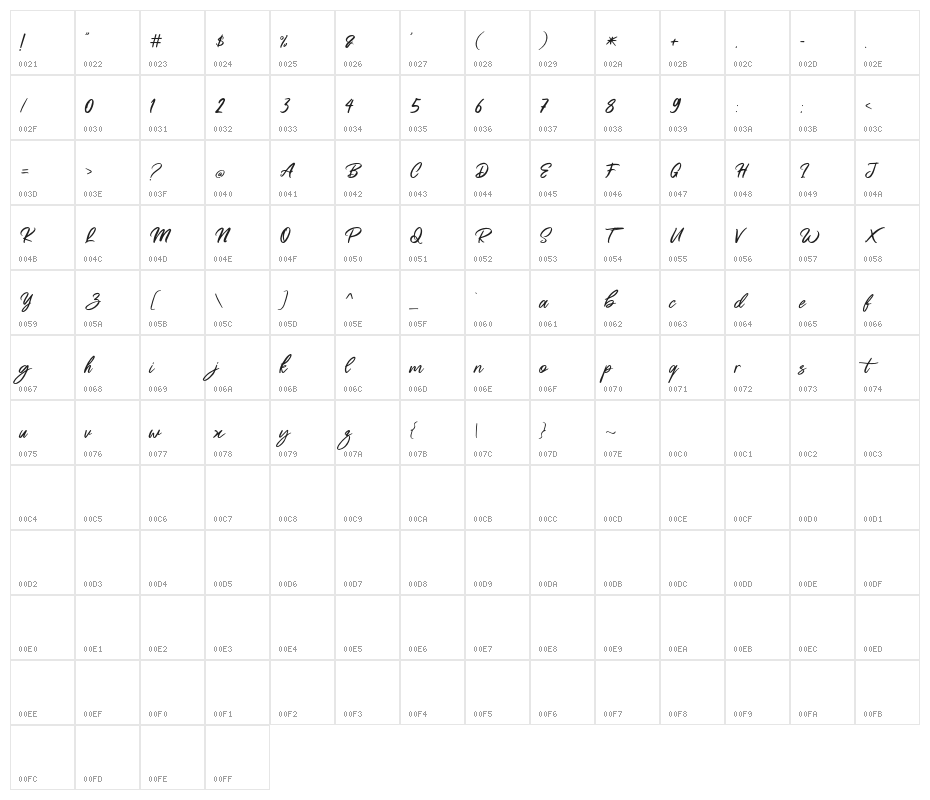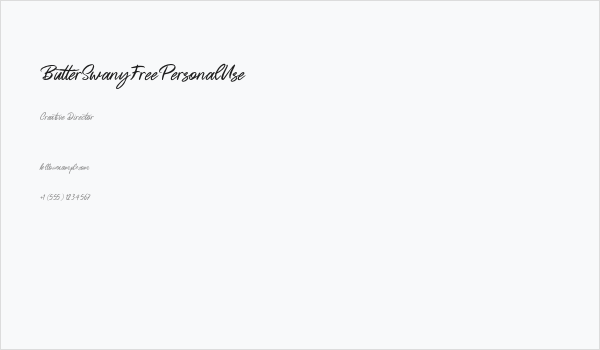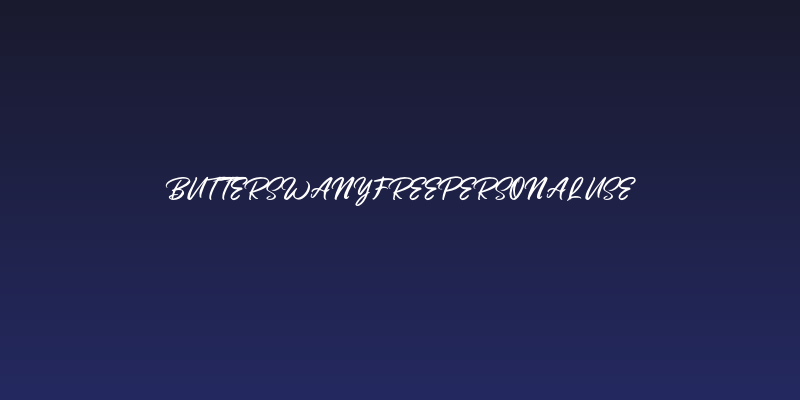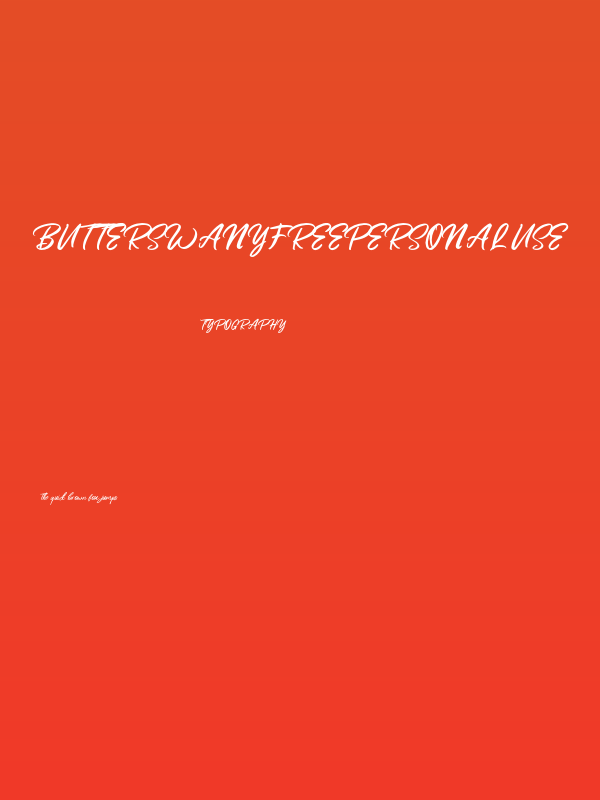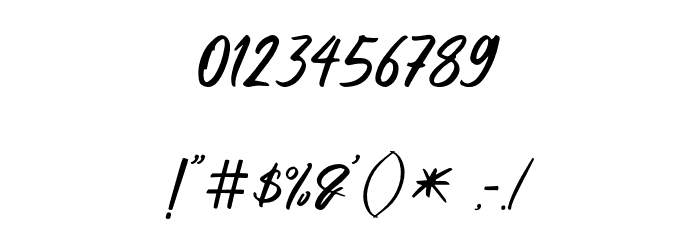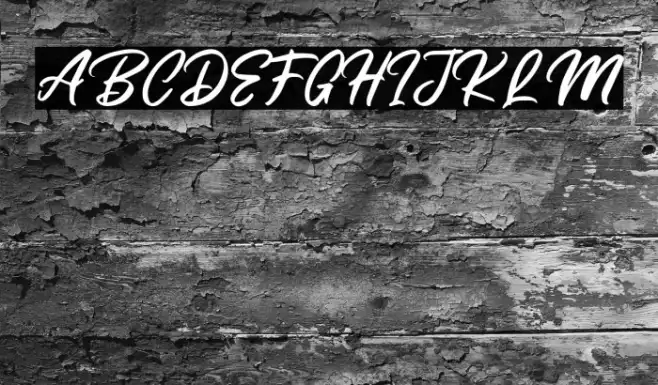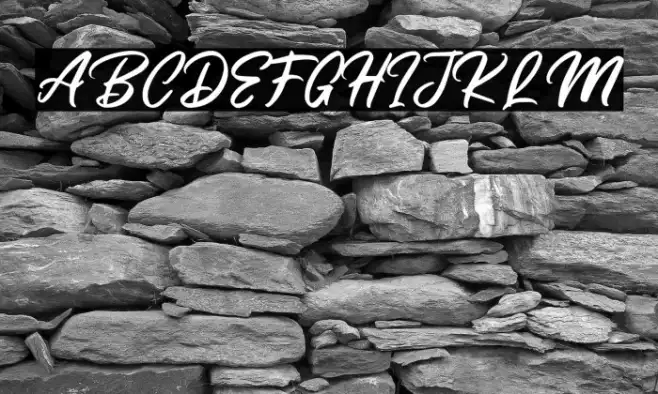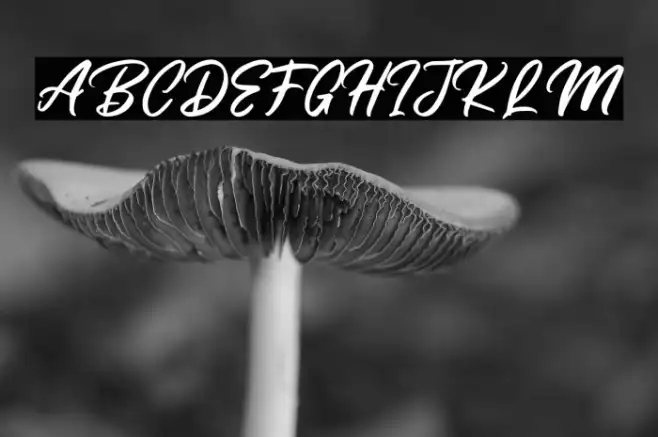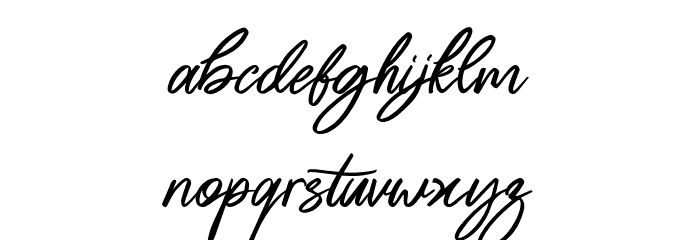
ButterSwanyFreePersonalUse Font
ButterSwanyFreePersonalUse Description
This font features a flowing, cursive style with elegant, sweeping strokes that give it a handwritten appearance. The uppercase letters are bold and expressive, with distinctive loops and flourishes that add a touch of sophistication. The lowercase letters maintain a consistent style, with smooth connections between characters, enhancing the script-like quality. Numbers and special characters are designed to match the overall aesthetic, ensuring a cohesive look across all text. This font exudes a sense of elegance and creativity, making it suitable for projects that require a personal, artistic touch.
| Proposed Projects | Ideal for wedding invitations, greeting cards, personal branding, and artistic projects. |